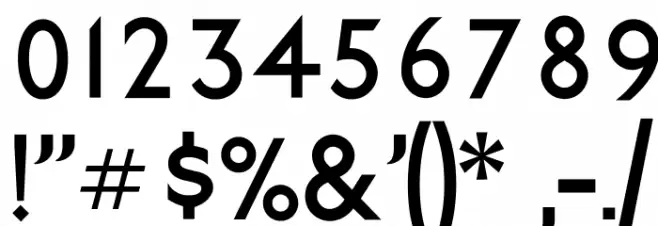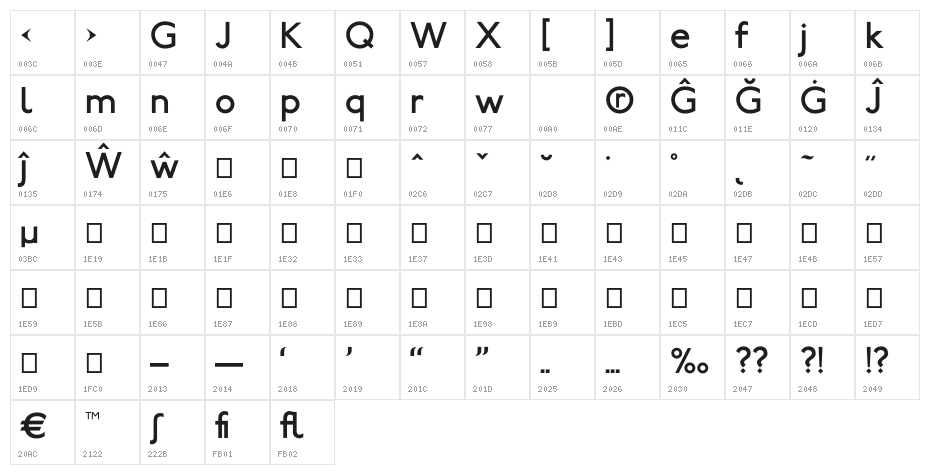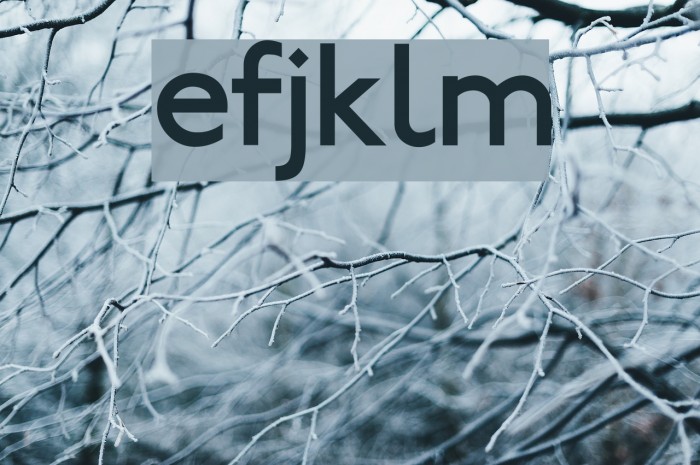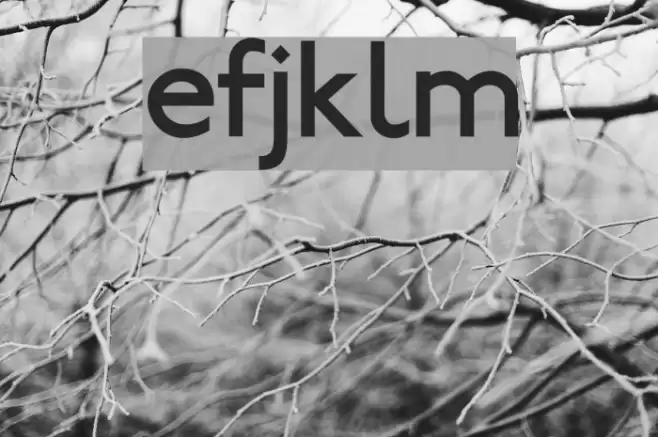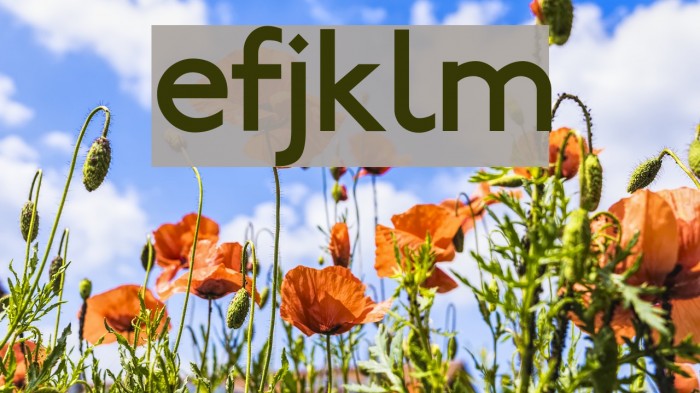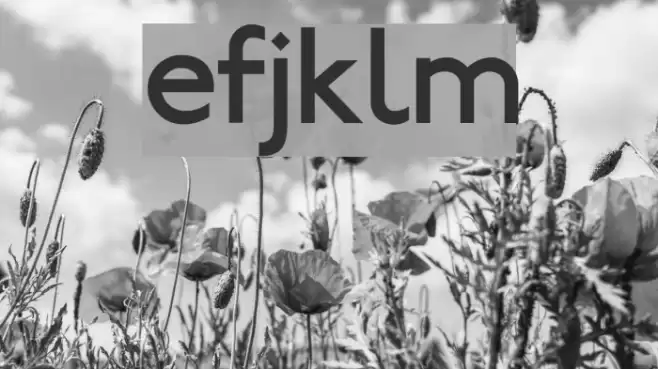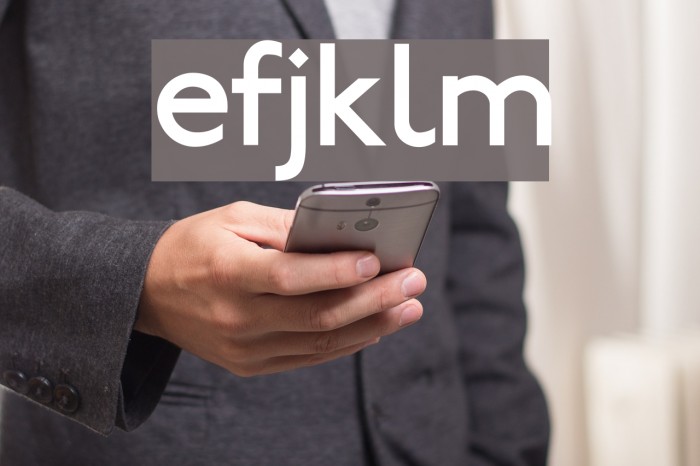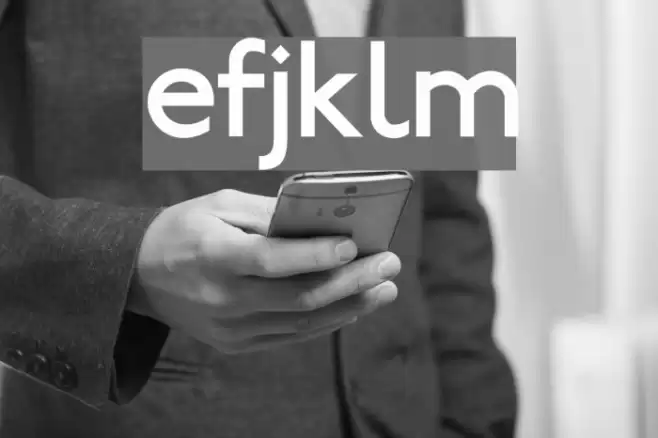
Railway Font
Railway Description
This font features a clean and modern sans-serif design, characterized by its geometric shapes and uniform stroke widths. The letters are bold and clear, making them highly legible at various sizes. The uppercase characters are slightly taller than average, giving a commanding presence, while the lowercase letters maintain a consistent x-height. The numerals are proportionate and align well with the overall style, ensuring readability. Special characters are distinct and match the font's overall aesthetic, making it versatile for various applications.